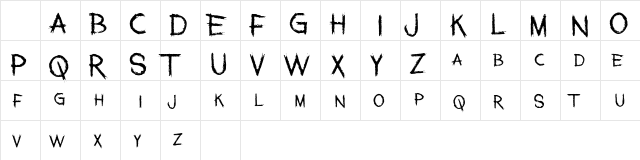
Complete Family Annihilator Regular glyph index. Displaying only characters natively supported by Family Annihilator Regular font.
Family Annihilator is a composed and adaptable typeface that performs quietly and consistently across a wide range of design contexts.